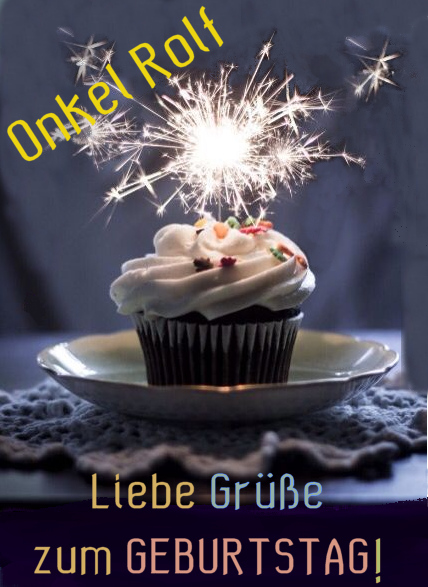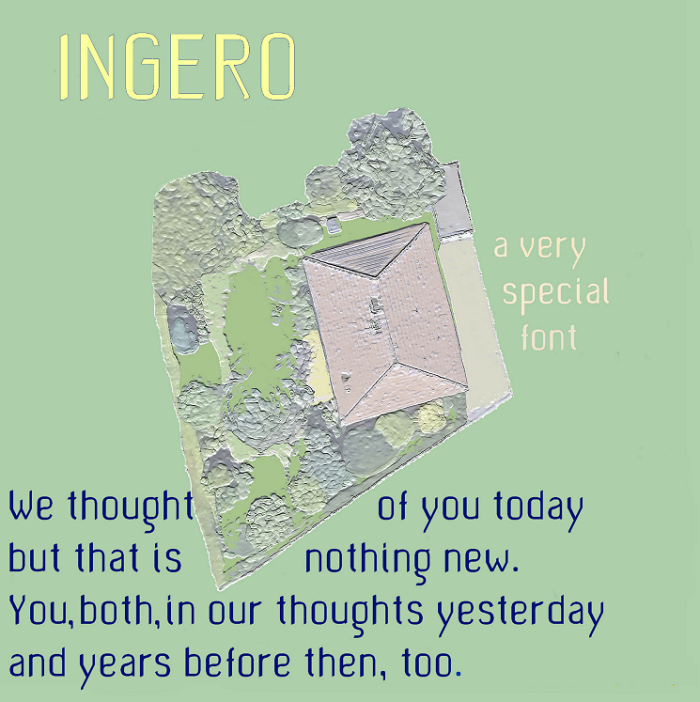
• This is the bolder version of INGEROL. Made for my uncle ROLF who is celebrating his birthday on the 28th August. I named the font for him and in loving memory of my aunt INGE who I miss very much. Love, Holli and Ninzi.
J has a tiny gap in the top due to a brick that isnt fully nudged I guess. Other than that I think you cafter a very cute looking and creative font here. Pretty unusual forms and a typical dose of funky Aonlien style.
@ Sed: thanks for spotting that! I've corrected it. Strange about that brick, it has no gap on the dutch digraph nor all other clones. And thanks for the appreciation (I can't abstract any specific style when looking at my simple text fonts. But: you're not the first person to observe a "personal style")
The first sampler shows Ingerol-2 with wider lines left & right whenever that makes sense; the second uses Ingerol-1,  it has the left lines wider than the others where the glyph shape allows.
I think the K &k are a bit weird. Is it intended? like, the thinner tiny stem section on k and the angle of the stem on K
@jingYo: when the arm of the k had the same line thickness it looked like a wooden plank, so I gave it a 'beak' like on the verticals to taper the line. Looking at the K in 81 different words I decided to straighten the angle, at the arm-leg juncture. Thank you for your valued observations :)